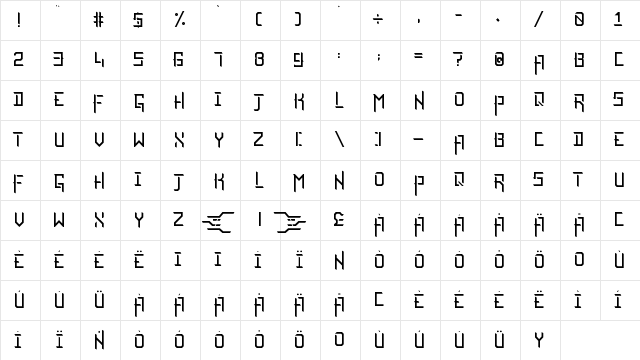
Razor Ephinea Regular Free Font
Razor Ephinea Regular
Designer: peps1992
Design Context for Razor Ephinea
Razor Ephinea is a composed and adaptable typeface that performs quietly and consistently across a wide range of design contexts.